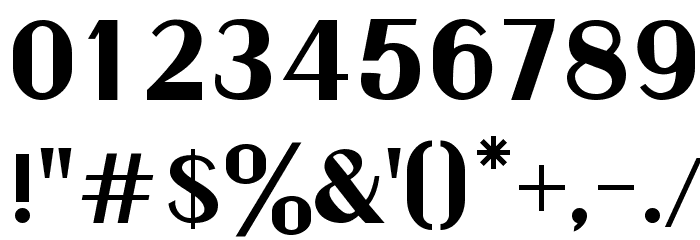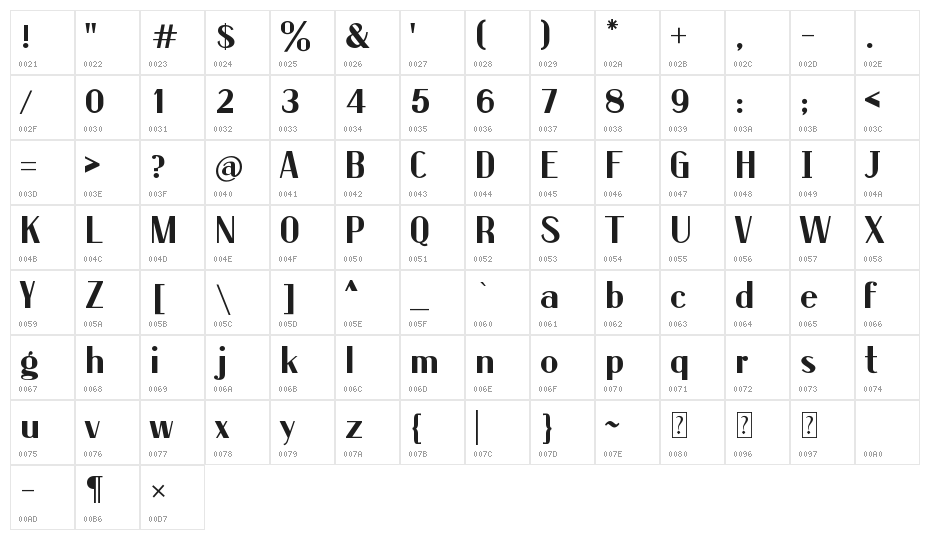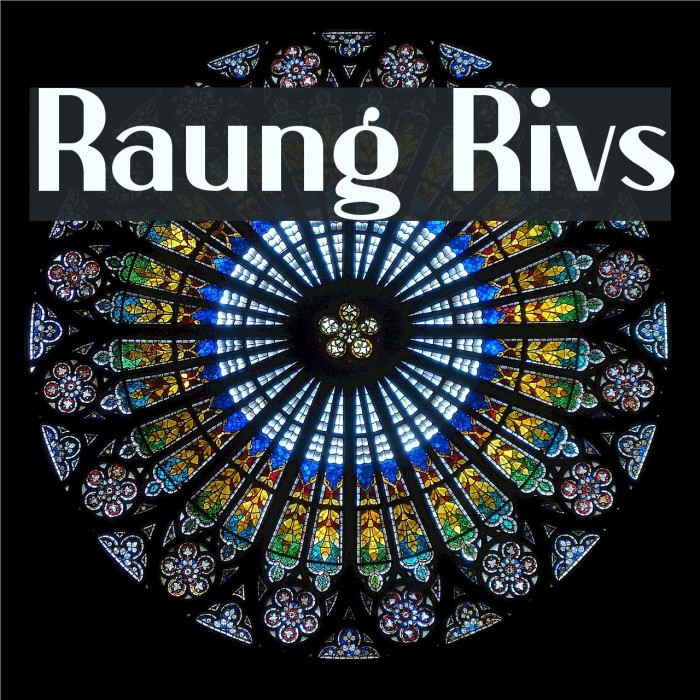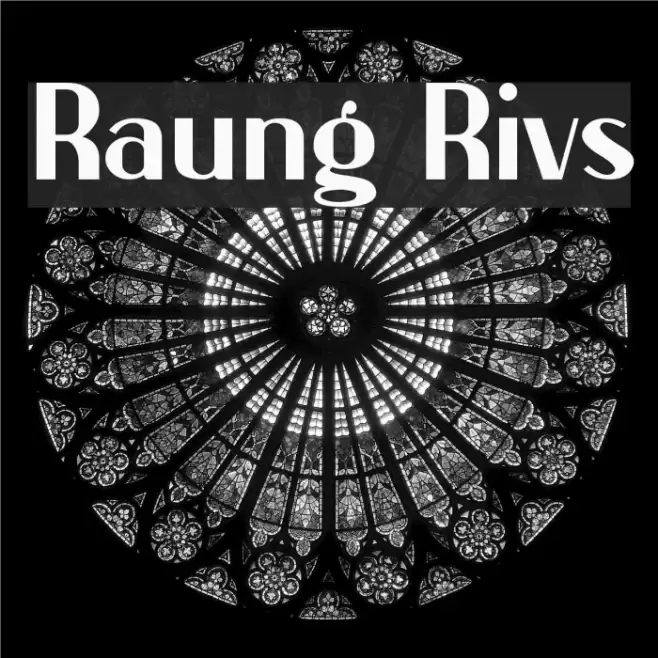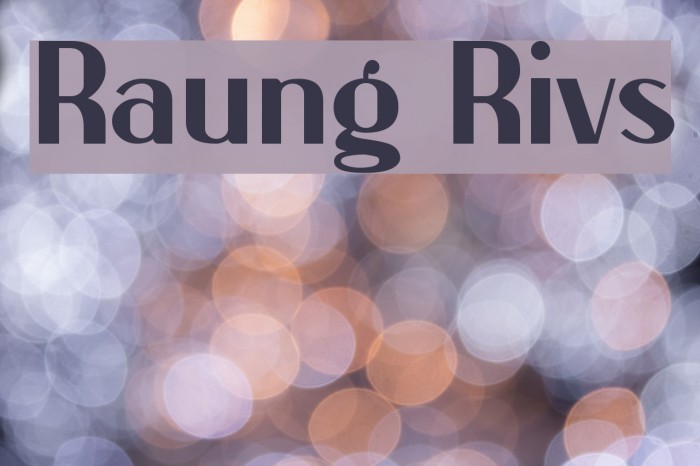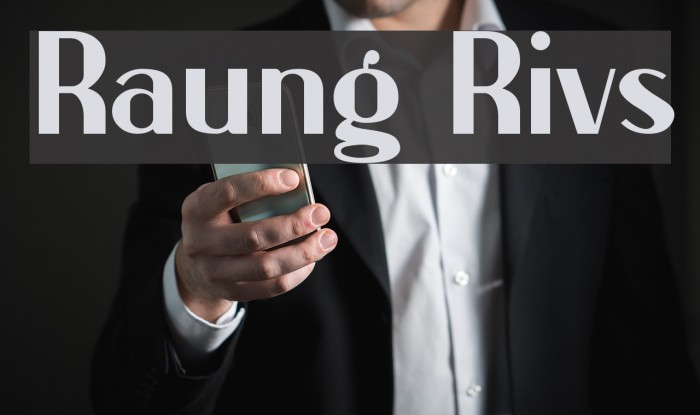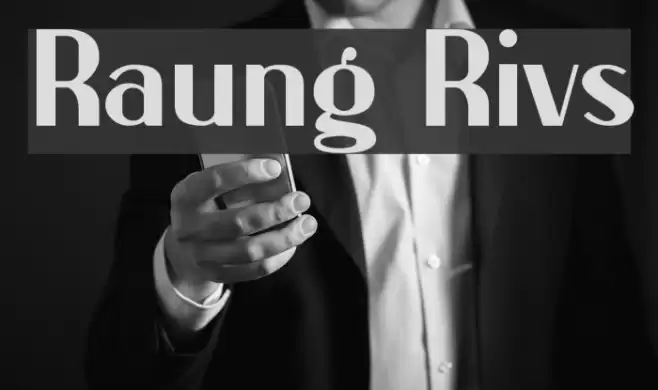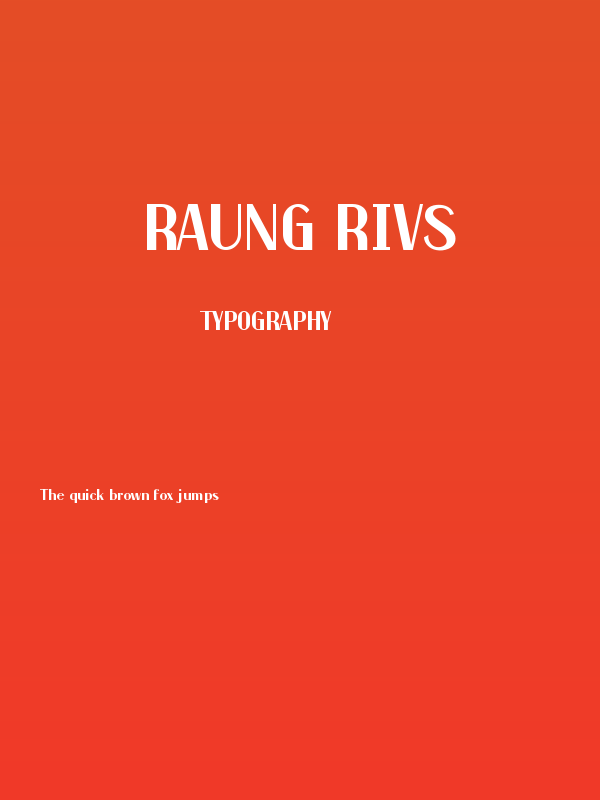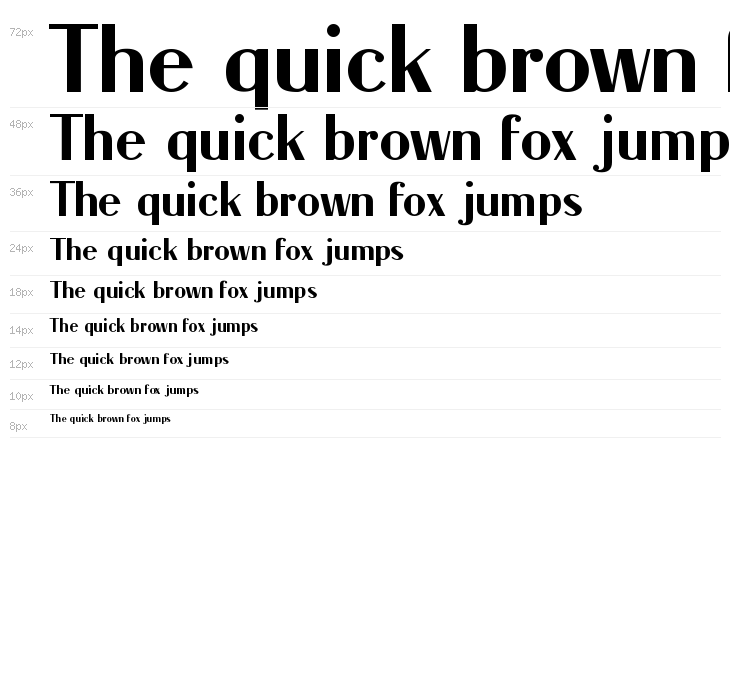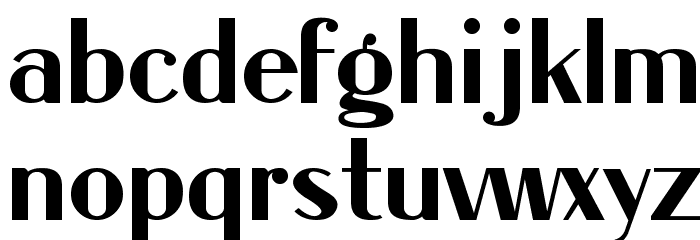
Raung Rivs Font
Raung Rivs Description
This font features a bold and striking design with high contrast between thick and thin strokes, giving it a modern and impactful appearance. The uppercase letters are tall and commanding, while the lowercase letters maintain a consistent style with slightly rounded edges that soften the overall look. The numerals are clear and distinct, ensuring readability. Special characters are well-integrated, maintaining the font's cohesive aesthetic. The font's design is versatile, suitable for both digital and print media, making it ideal for headlines, branding, and advertising.
| Use Case | Headlines, Branding, Advertising |
| Proposed Projects | Ideal for branding, advertising, headlines, and digital media projects. |